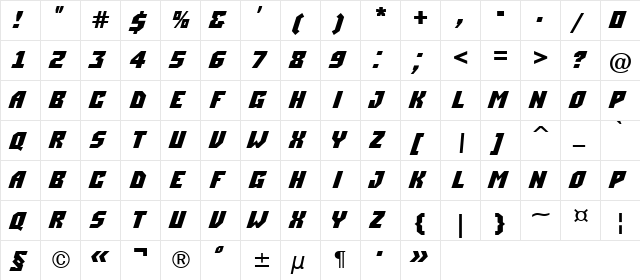
a_SimplerDnm Regular
Design Context for a_SimplerDnm Typeface
a_SimplerDnm takes a measured approach to typography — its balanced proportions and neutral character make it a reliable workhorse for both digital and print work.